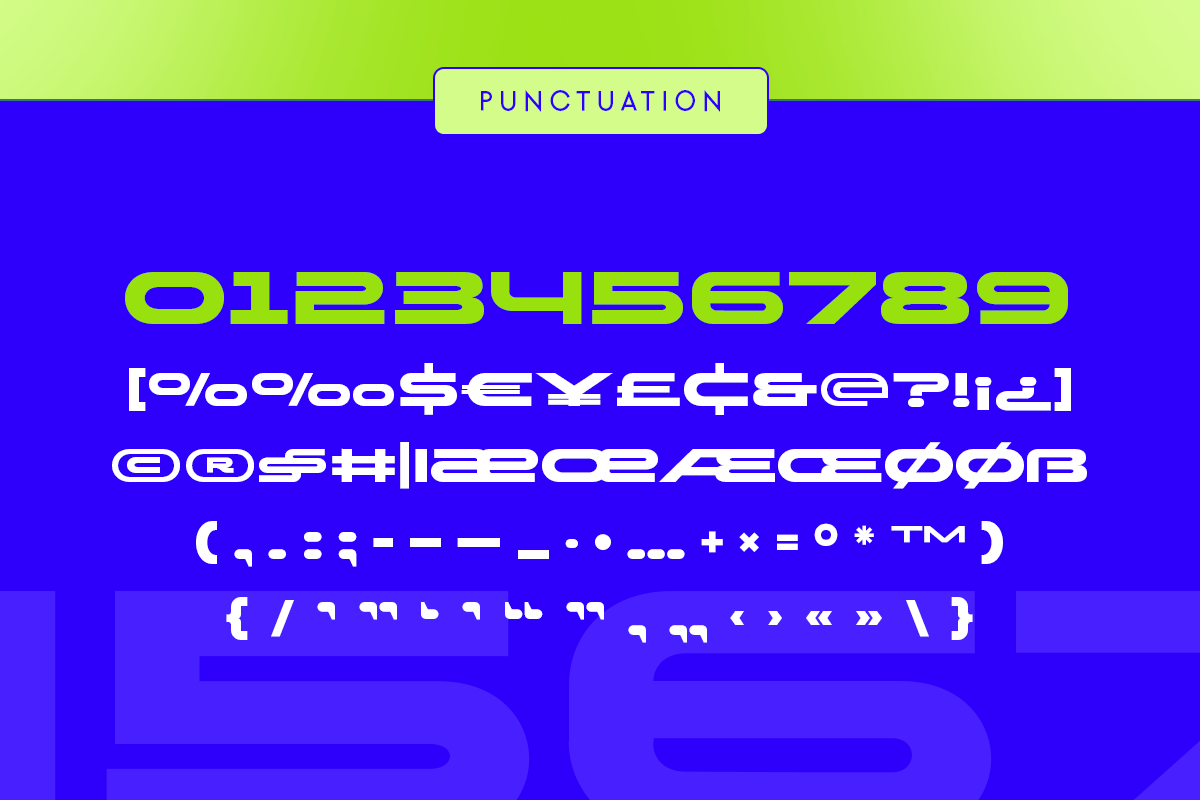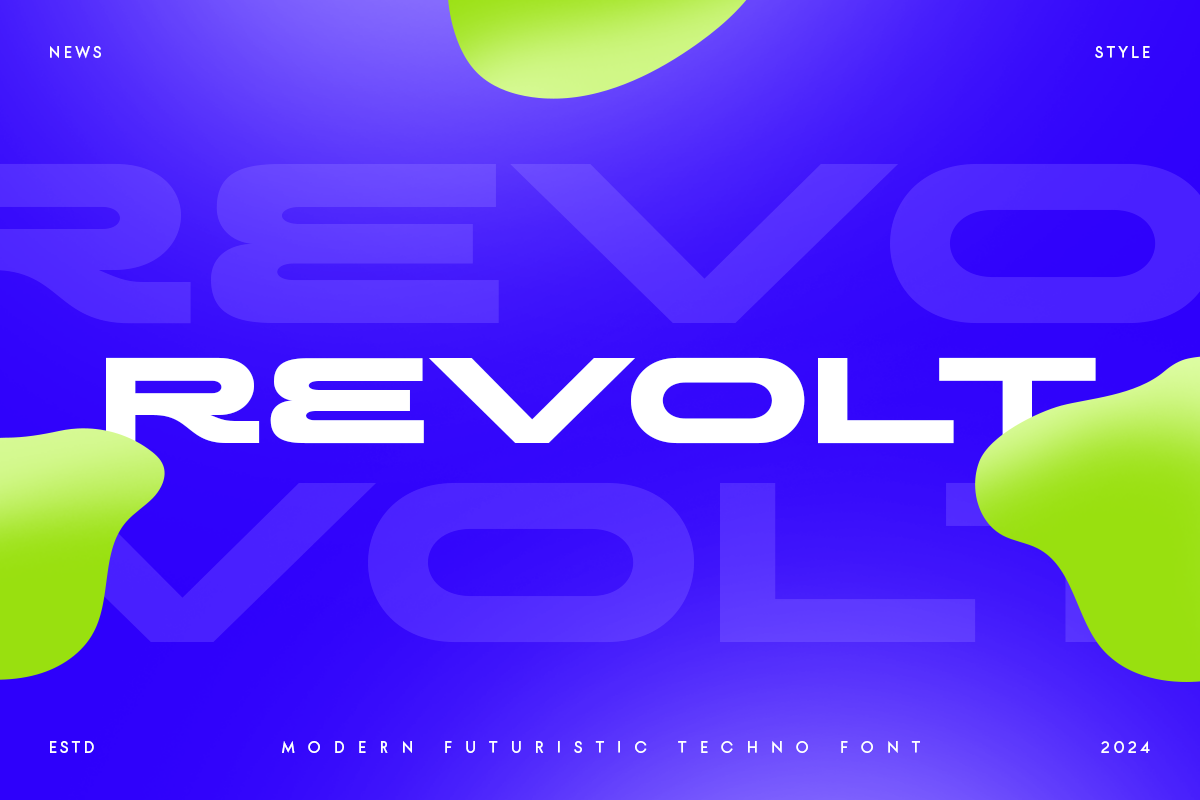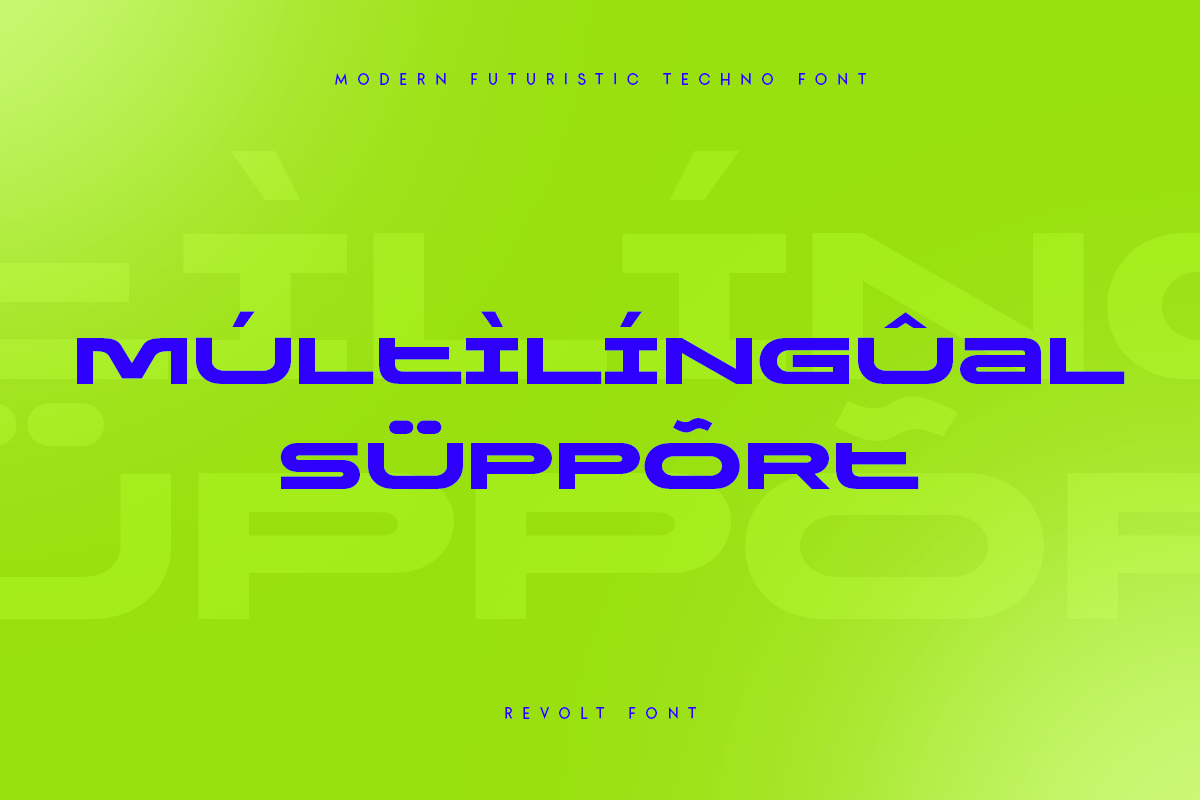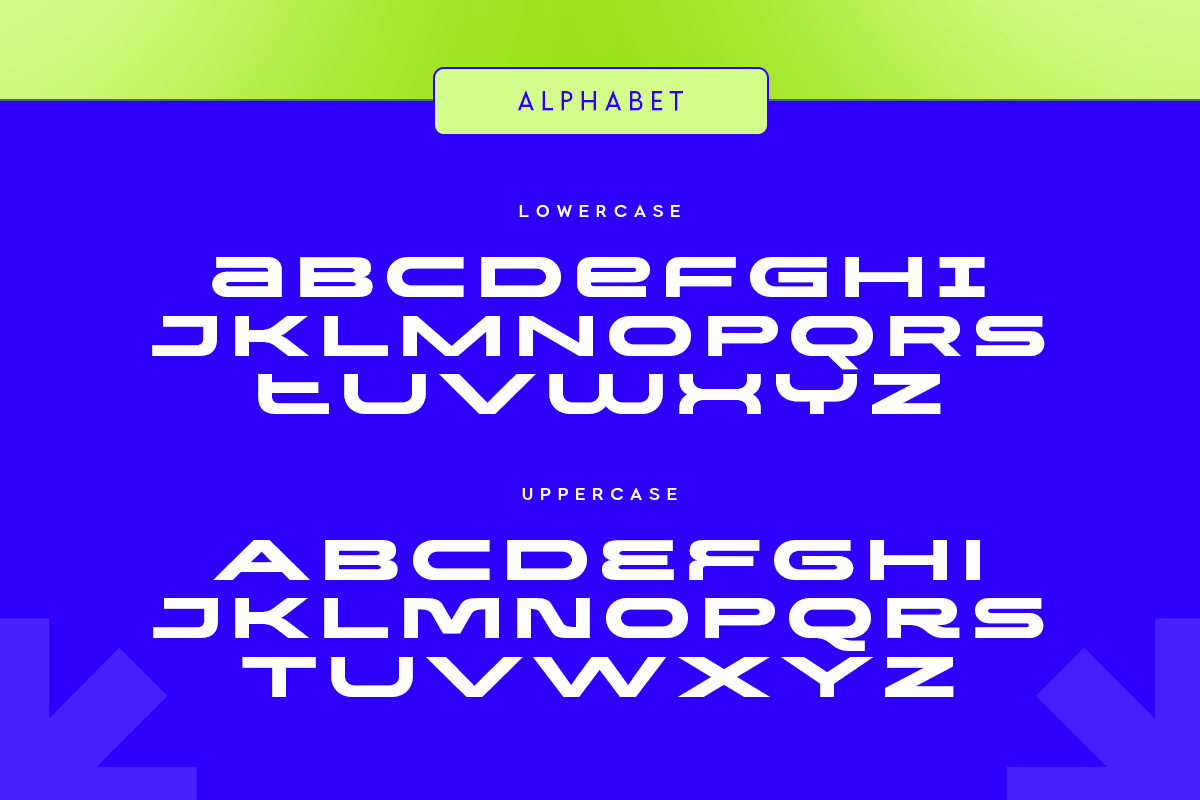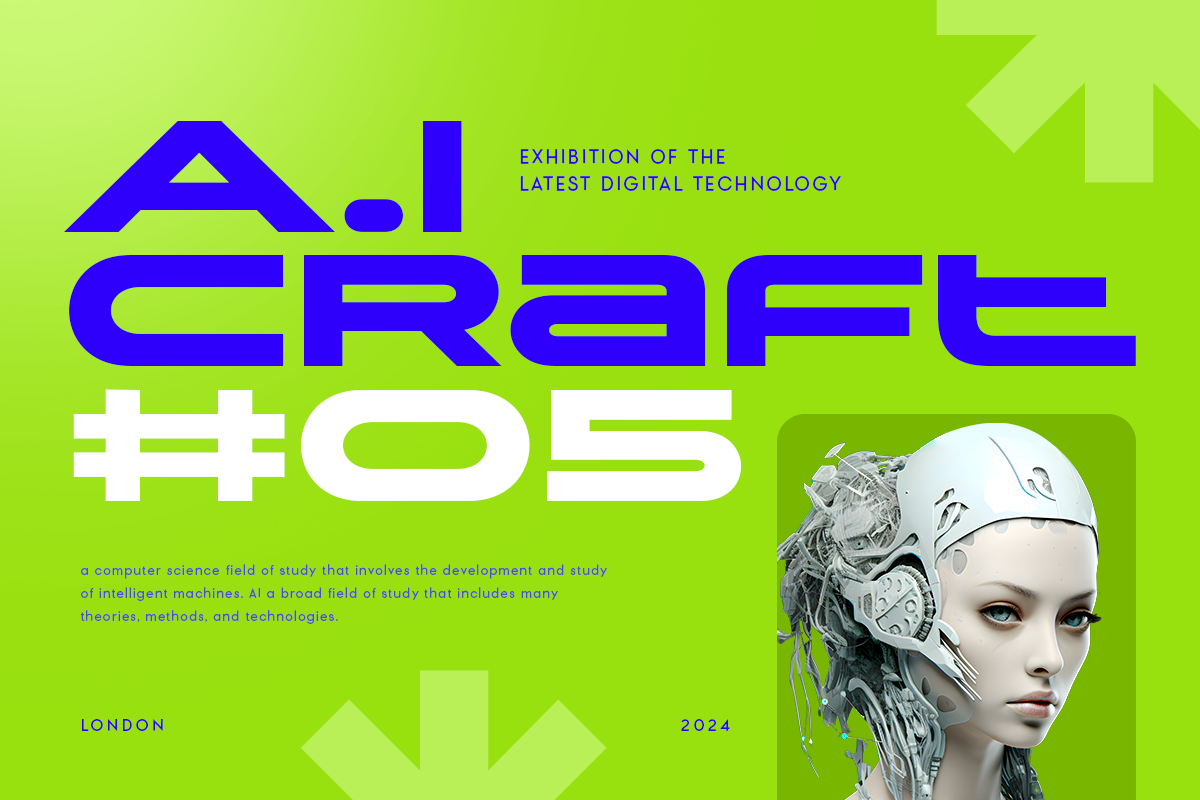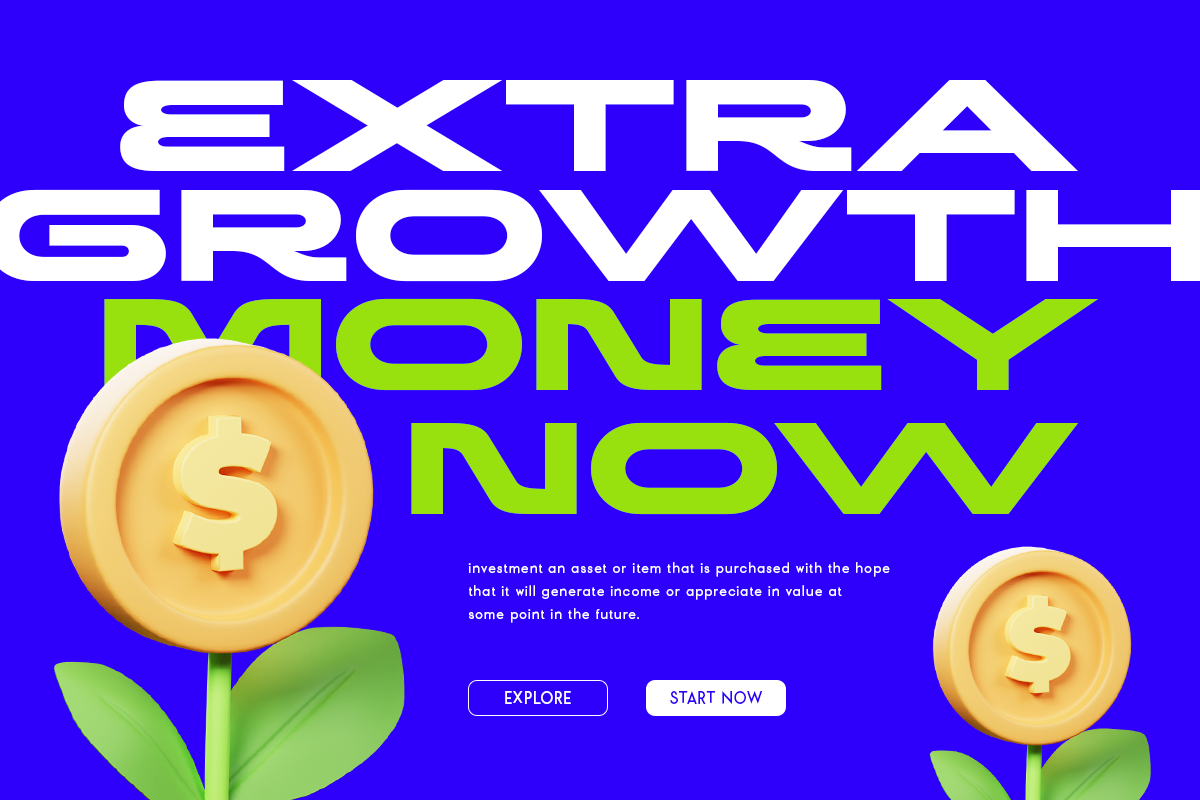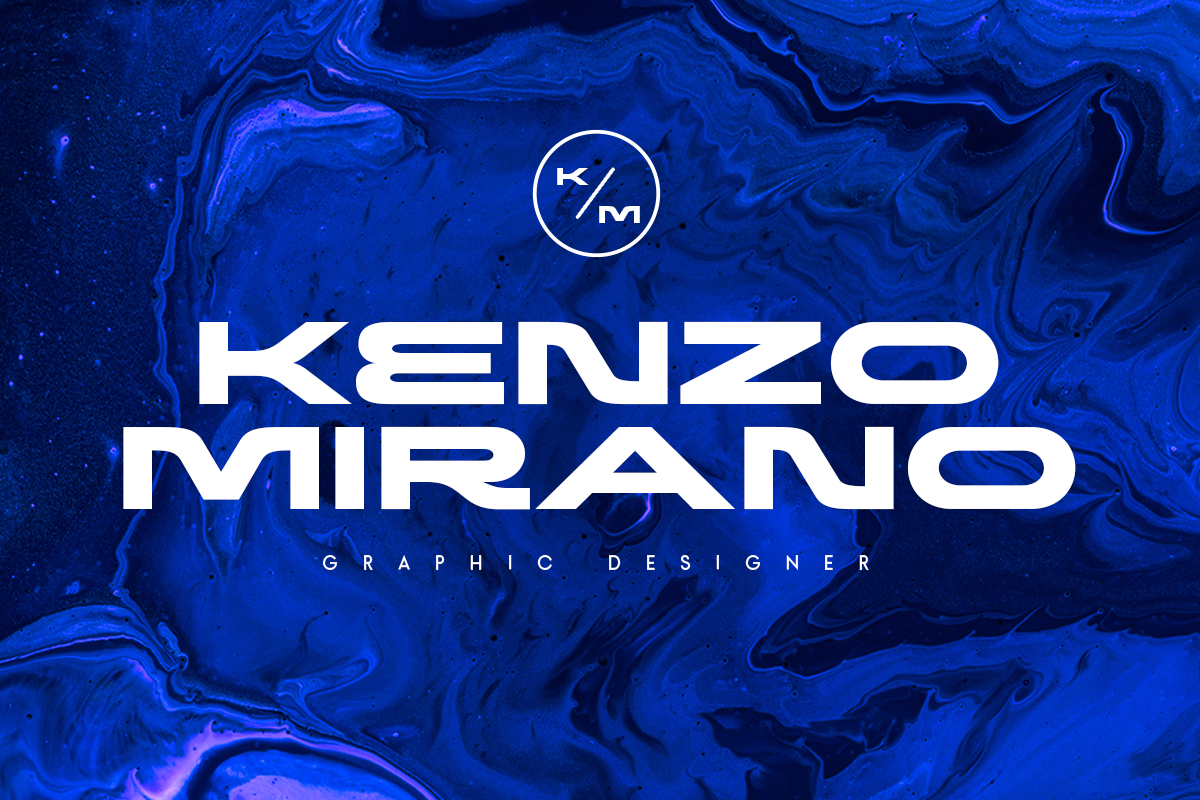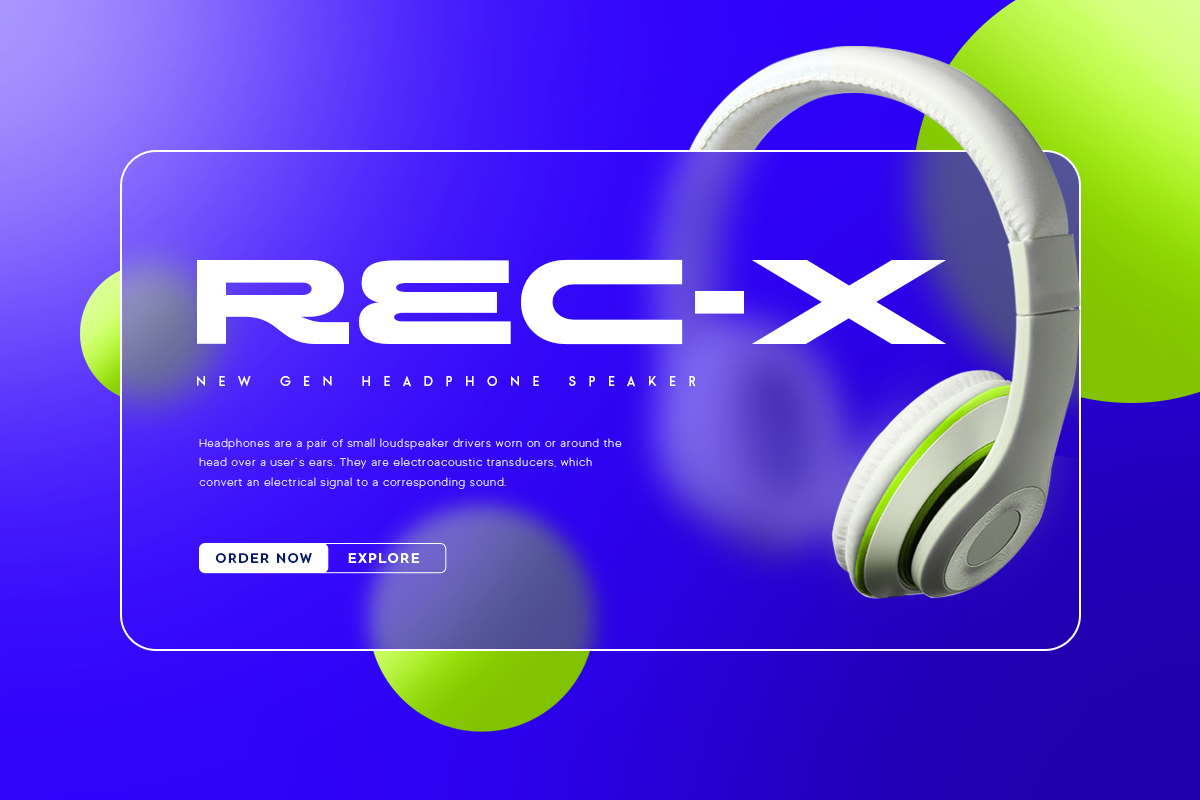
REVOLT - Neo Brutalism Techno Font
REVOLT Neo Brutalism Futuristic Techno Font is a Corporate well-balanced modern font with a minimalist, unique, and iconic sans serif, font that you can combine to get any variations and unique shapes easily just in seconds with choose alternates of them. It is a sans serif font with minimalist style that perfect for branding projects, logo, poster designs, social media posts, advertisements, product packaging, product designs, label, photography, watermark, invitation, stationery, and any projects, it makes with a high level of legibility.